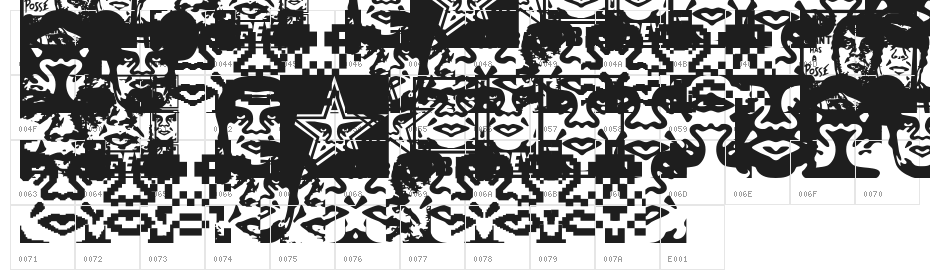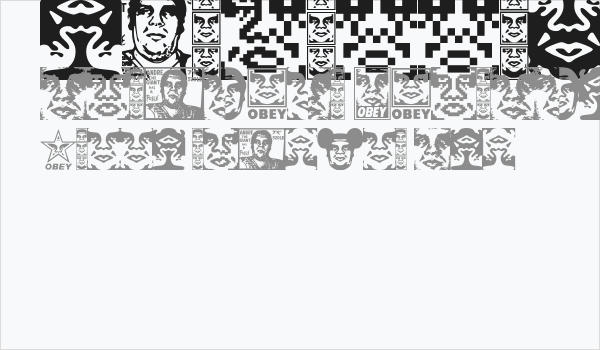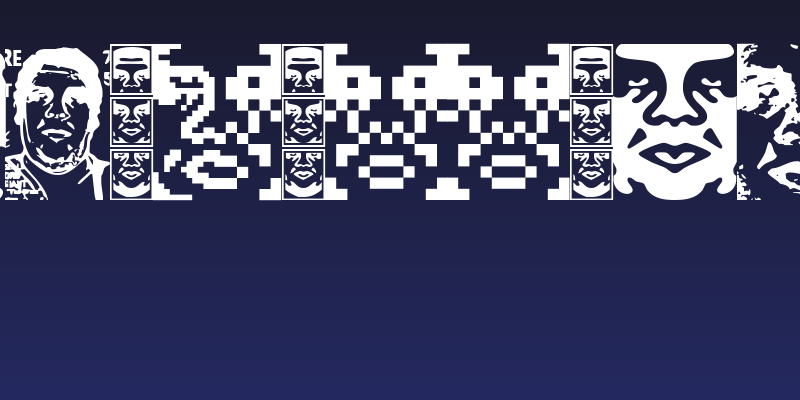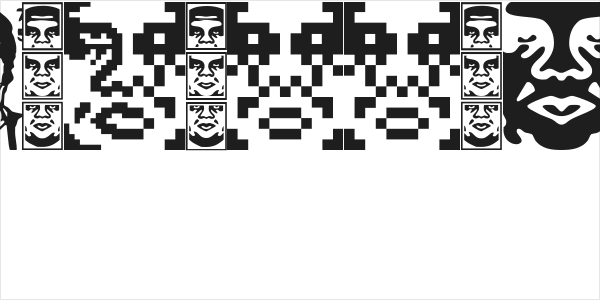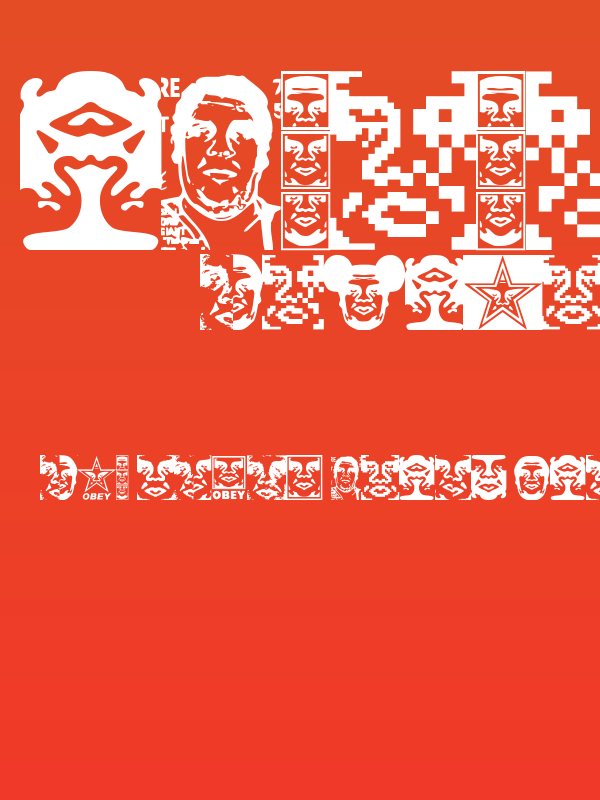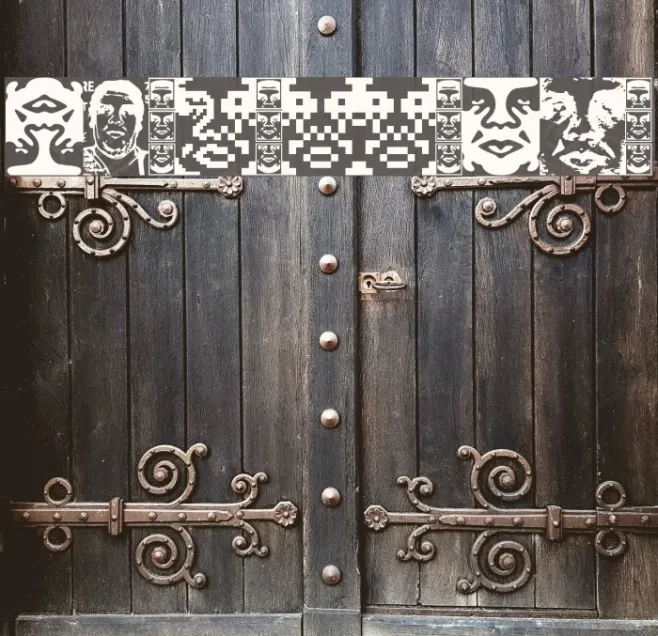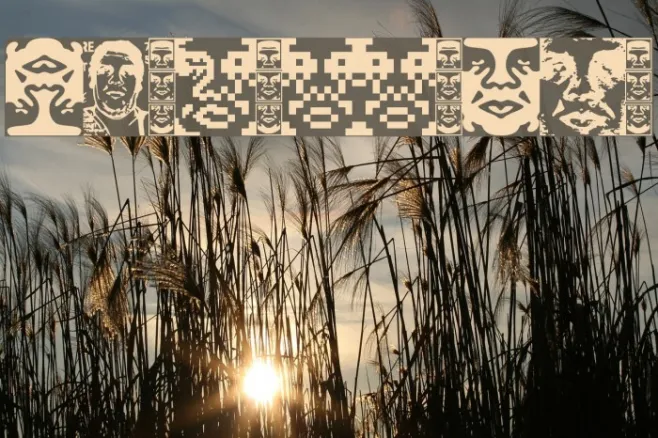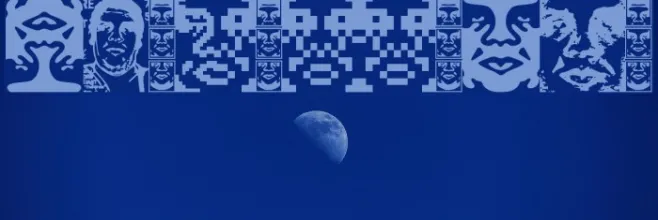
ObeyEssence Font
ObeyEssence Description
A highly decorative, graphic font composed of iconic pop art and street art-inspired illustrations, including stylized faces, stars, and bold imagery, with each character represented by a unique artwork rather than traditional letterforms.
| Overall Style | Decorative, Urban, Pop Art |
| Use Case | Logos, Headlines, Posters, Artistic projects |
| Proposed Projects | Posters, album covers, urban art projects, branding for streetwear, event flyers, and creative campaigns. |